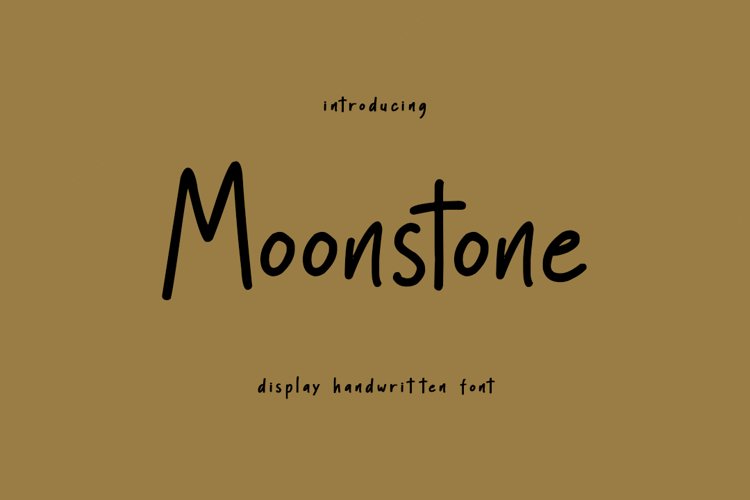
Hi introducing my newest font it's called Moonstone.
Moonstone is a handwritten font that is made as simple as possible which is inspired by my writing as a child, equipped with doodle features and also multilangual support. It is suitable to complement your design needs such as logos, mockups, youtube content, etc.